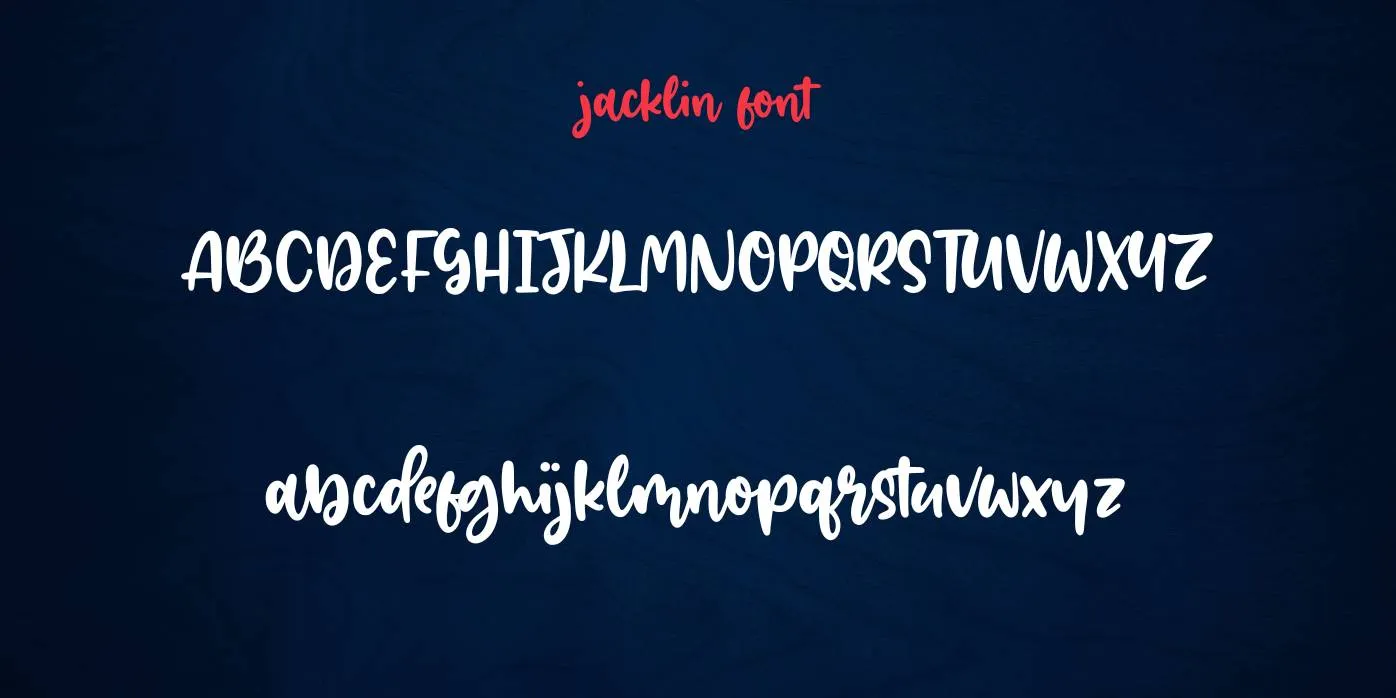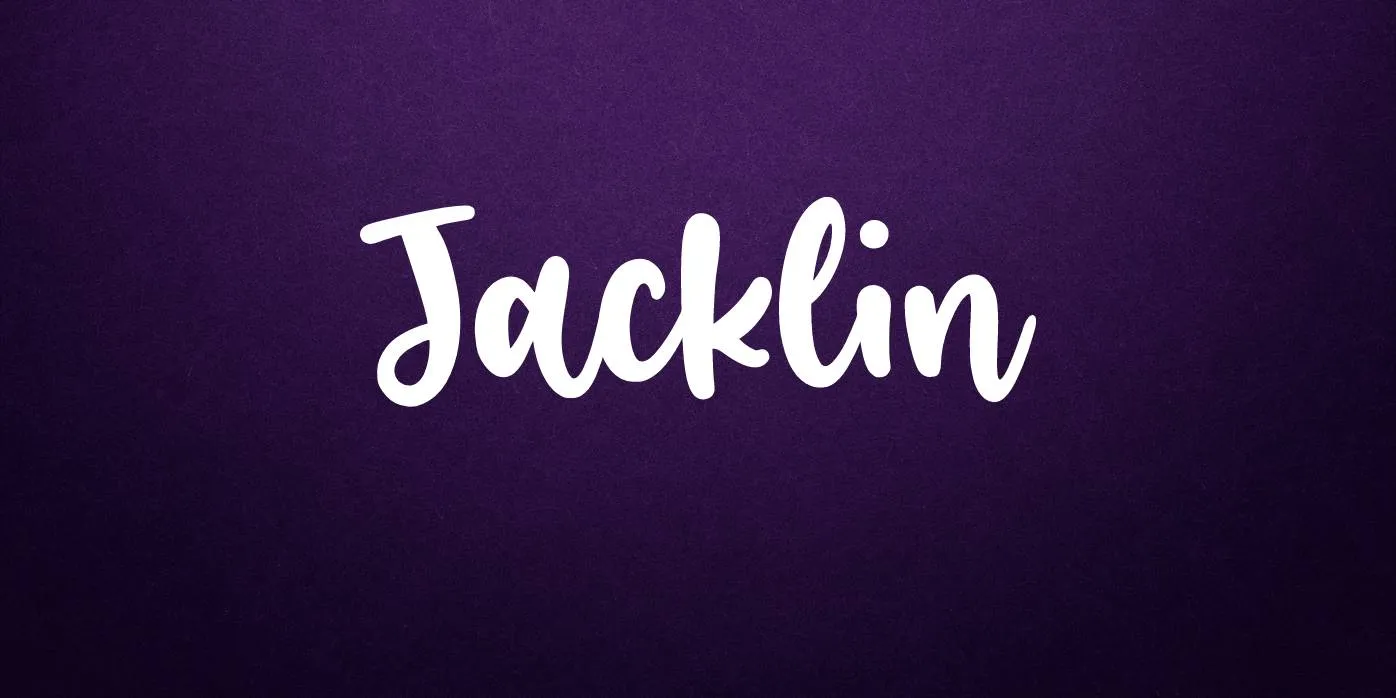
Jacklin Font
We are going to discuss a very stylish font here named Jacklin font. This font is designed by Balpirick Studio. All rights are reserved by Balpirick. It falls under version 1.00.
Font creator 11.5.0.2430 64 bit. Unicode followed by this font is 2.0 BMP only. It has 118 characters, 117 glyphs, and 2048 units per Em. The weight of the font is bold and the width of the font is medium(normal).
The pattern nature of this font is regular and the pitch is not monospaced. It can be paired with other fonts like chocolatier artisanal script font to give a more attractive look to your projects. An online generator tool is used for this font to change simple text into a stylish look and it makes copy-paste function easy to use. It can be downloaded on many devices such as PC/Mac, Linux, and IOS.
It supports file formats TTF (True Type Font) and OTf (Open Type Font). Usage It is a very decorative font and can be used for making various projects. Its elegant look can be used for making product packing of different brands and products. It can be used for product packing like cosmetics and perfumes.
You can also use this font for making logos of different kinds of brands, video games and stylish logos of photo album covers. You can also be used for making website designs in a very stylish way. This font is also used in most of the signatures. It is a good choice for making headlines and marriage invitations to give an attractive look.
Is Jacklin Font still used? Yes, this font is used by many brands and designers. It has so many styles and a very big range of weights which can be used for making so many projects. Can I use Jacklin font for my brochures?
Yes, It has a very stylish and attractive look like other projects it can also be used for making brochures. Who is the designer of the Jacklin font? This unique and interesting font is made by Balpirick Studios.  Is Jacklin a default font? No, you can download this font from this site and it will automatically show on your desired application for use.